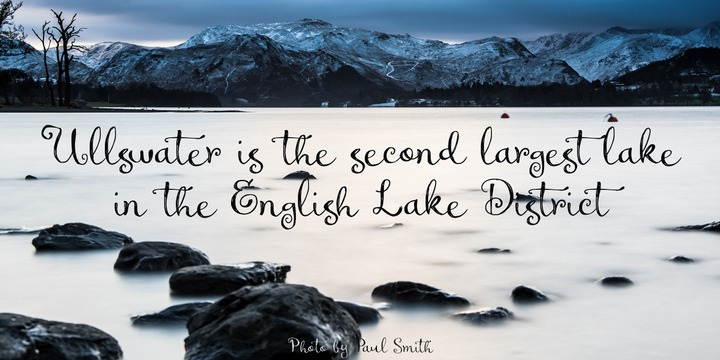
Ambleside Font
This countryside typeface is perfect for rural businesses, lake resorts, countryside cafes, outdoor tourism, heritage brands, artisanal products, bed and breakfast signage, nature conservancies, and pastoral design projects.
What makes this font exciting is its lakeside charm combined with countryside authenticity, offering designers a peaceful typeface that captures the tranquility of rural landscapes while delivering natural warmth and idyllic English countryside sophistication.
The Ambleside font family includes light, regular, medium, bold, and rustic variations, providing complete countryside design solutions for creating serene pastoral visual identities.
Whether you're developing rural tourism brands or crafting peaceful countryside experiences, Ambleside Font Free Download brings exceptional pastoral atmosphere and countryside authenticity to every application. This tranquil typeface combines traditional rural typography with contemporary nature-inspired design, creating letterforms that evoke serenity and natural beauty. The font's countryside construction and tranquility-ready details make it perfect for brands seeking immediate rural recognition.
Ambleside Font features carefully crafted countryside styling with authentic rural character that conveys genuine pastoral heritage. Each character has been designed to reflect the peaceful essence of lakeside villages, with gentle proportions and natural elements that enhance the serene aesthetic. The font's countryside qualities make it particularly effective for tourism brands and rural applications.
Professional designers choose Ambleside Font for projects requiring authentic countryside credibility and pastoral atmosphere. Its rural heritage makes it exceptionally well-suited for lake resorts, countryside accommodations, and nature-focused lifestyle brands. The font's versatile countryside variations allow designers to control the pastoral intensity, from subtle rural elegance to full countryside celebration.
The complete Ambleside Font package offers extensive countryside ornaments and pastoral decorative elements that enhance the rural aesthetic. Advanced natural features allow designers to create complex countryside effects with multiple landscape-inspired options. This comprehensive rural toolkit ensures designers have everything needed to create authentic countryside communications that celebrate the timeless peace of rural landscapes and natural tranquility.